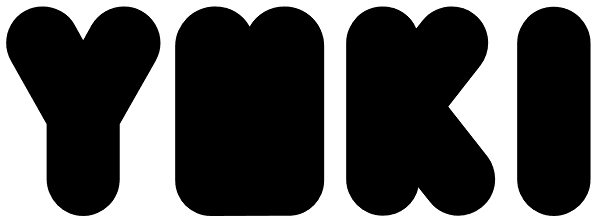
Yuki
Yuki is a full and rounded font that also manages to be compact, so when you need to make a big impact in a small space and still maintain a friendly feel, Yuki is here to do the job. In two different styles, each with bold alternatives, Yuki’s best...